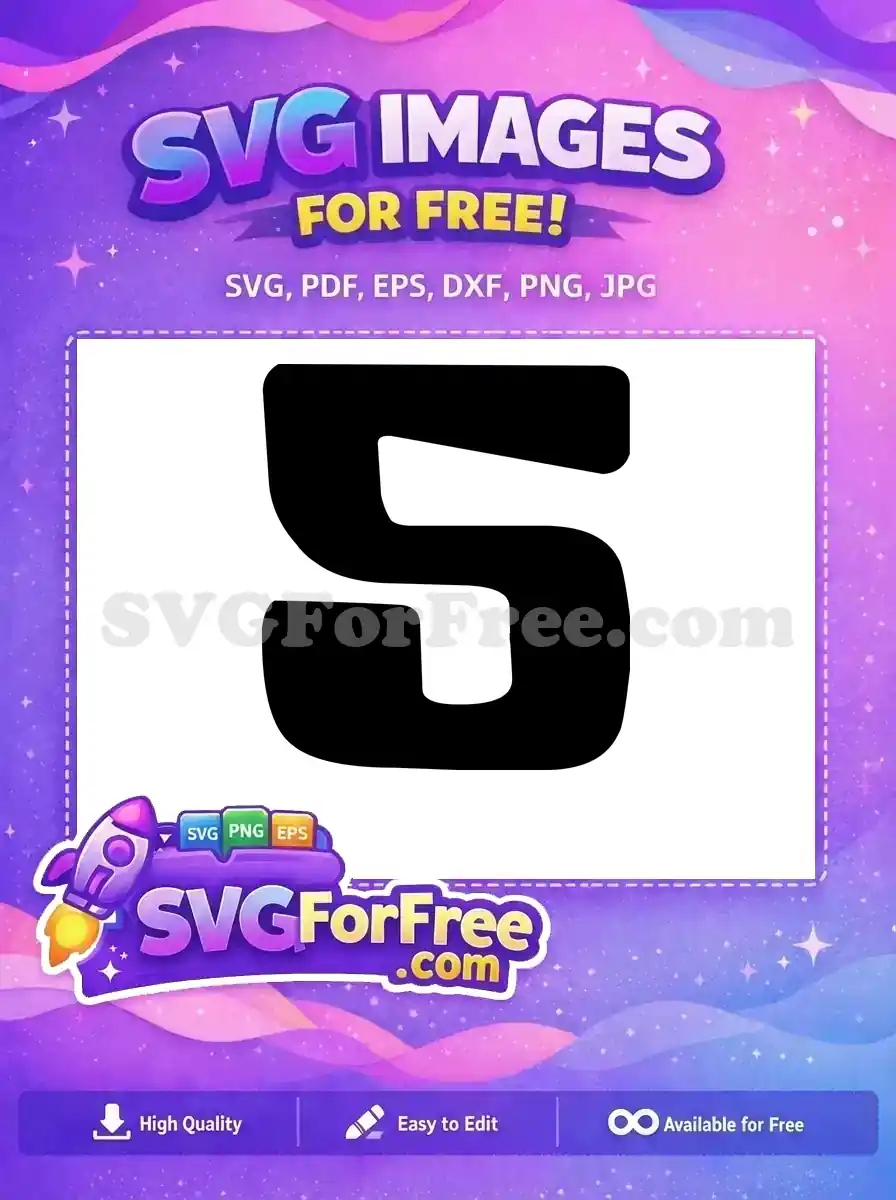
Free Lilo and Stitch Font Number 5 Free Bold Black Lettering Free SVG – Instant Download
Number 5 in block style, free vector digit.
Free Lilo and Stitch Font Number 5 Free Bold Black Lettering Free SVG